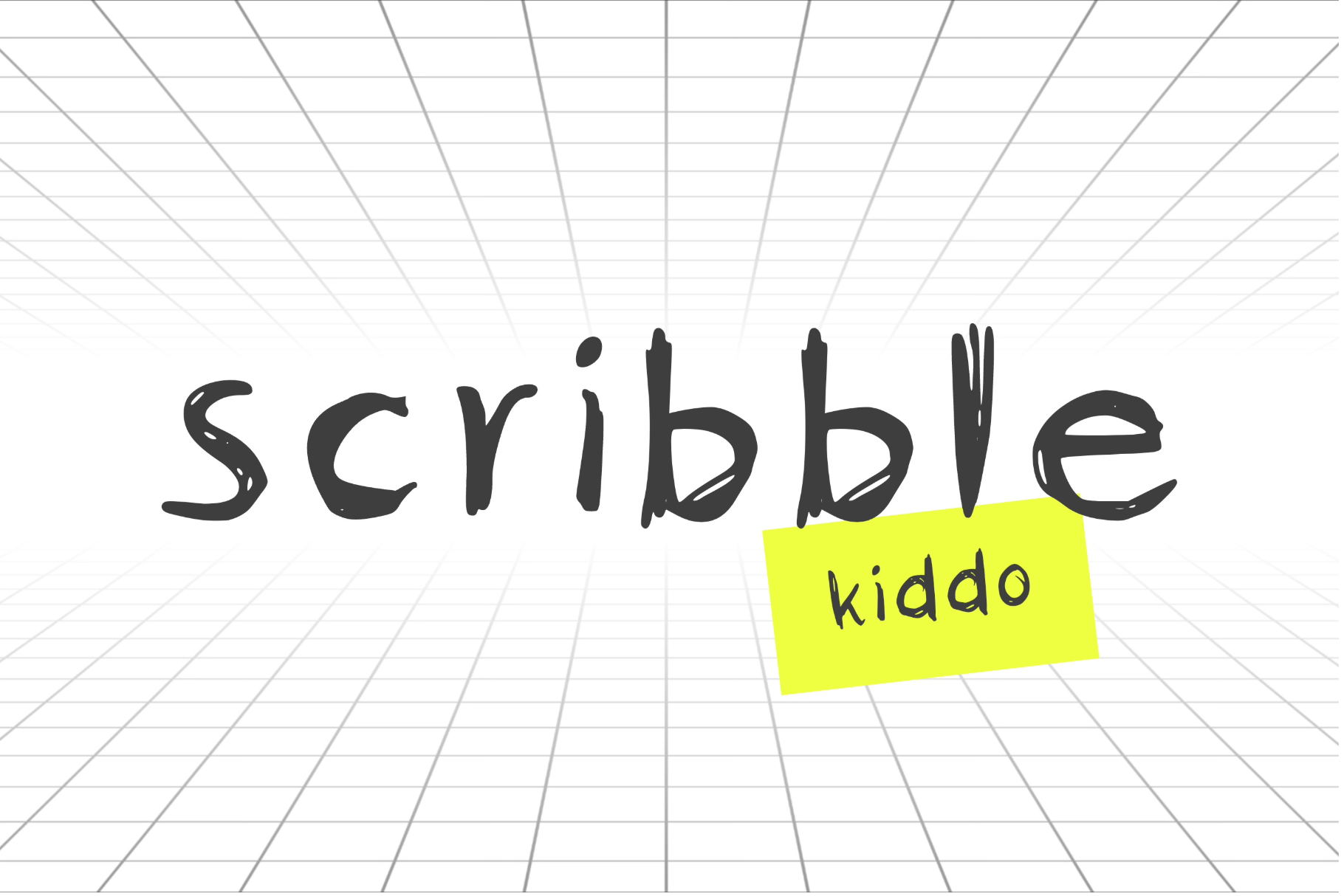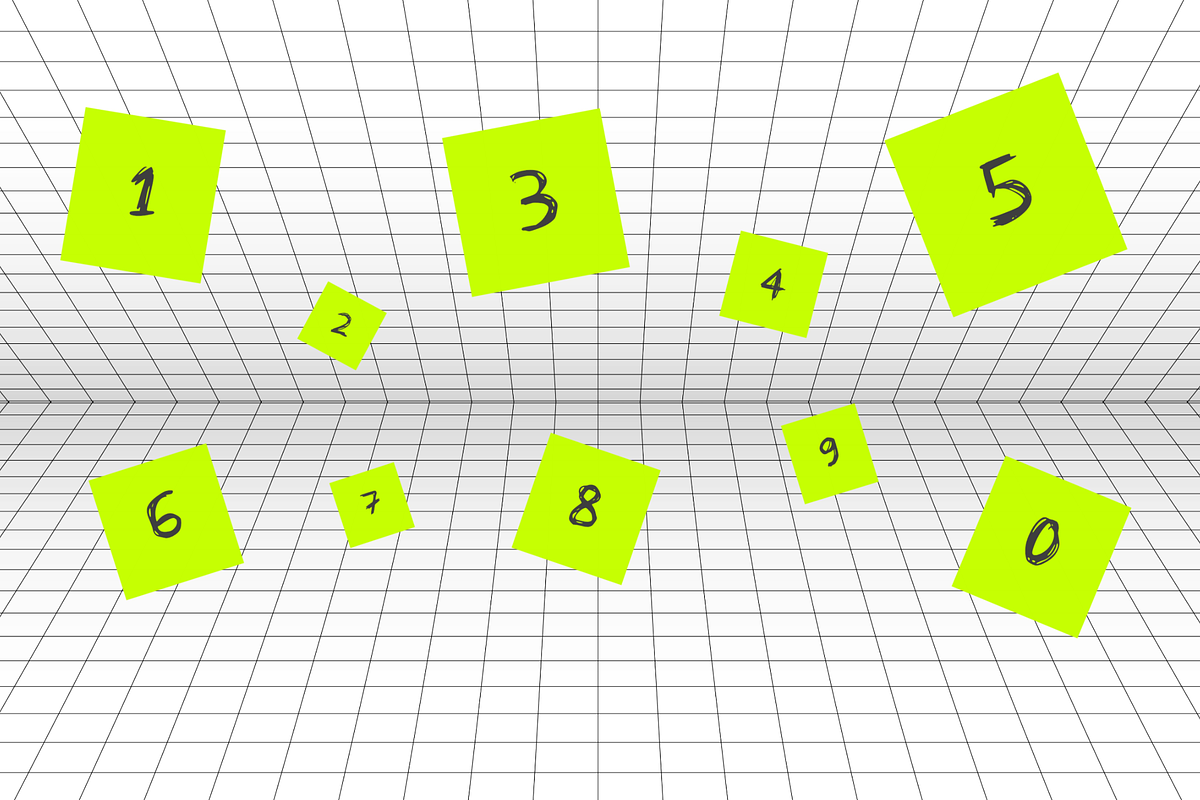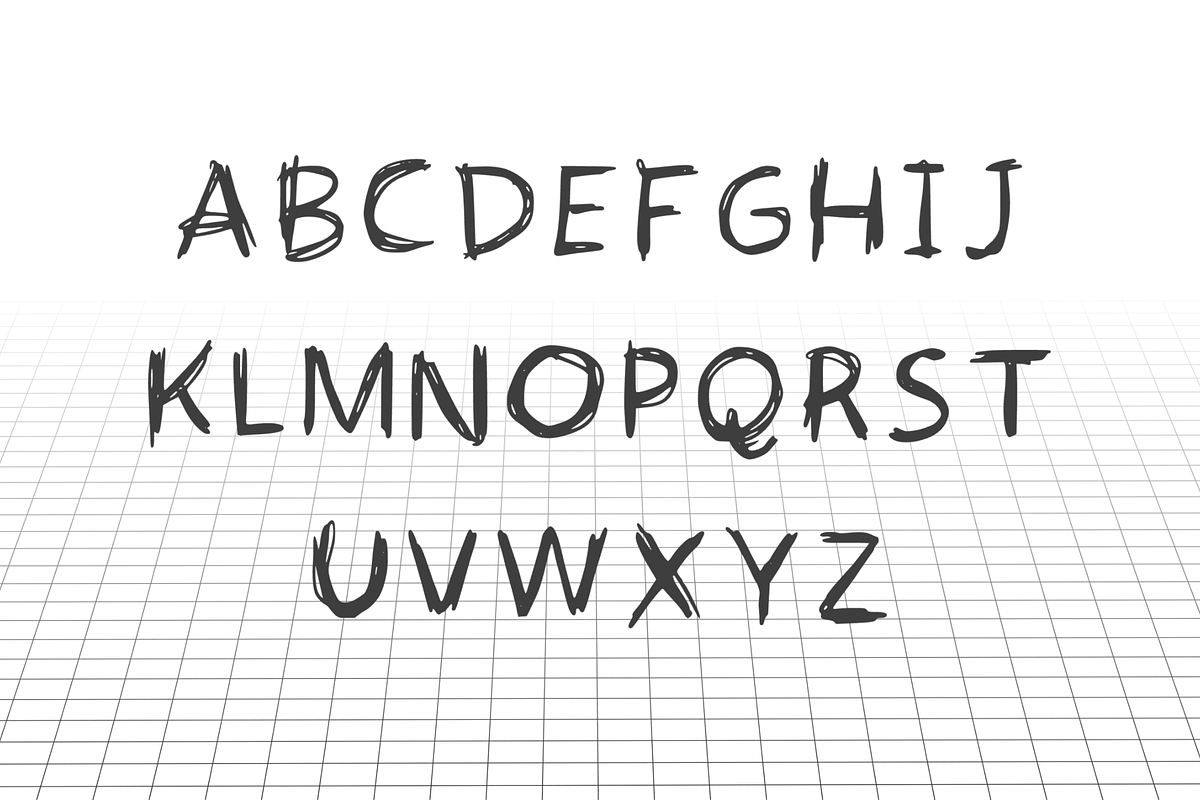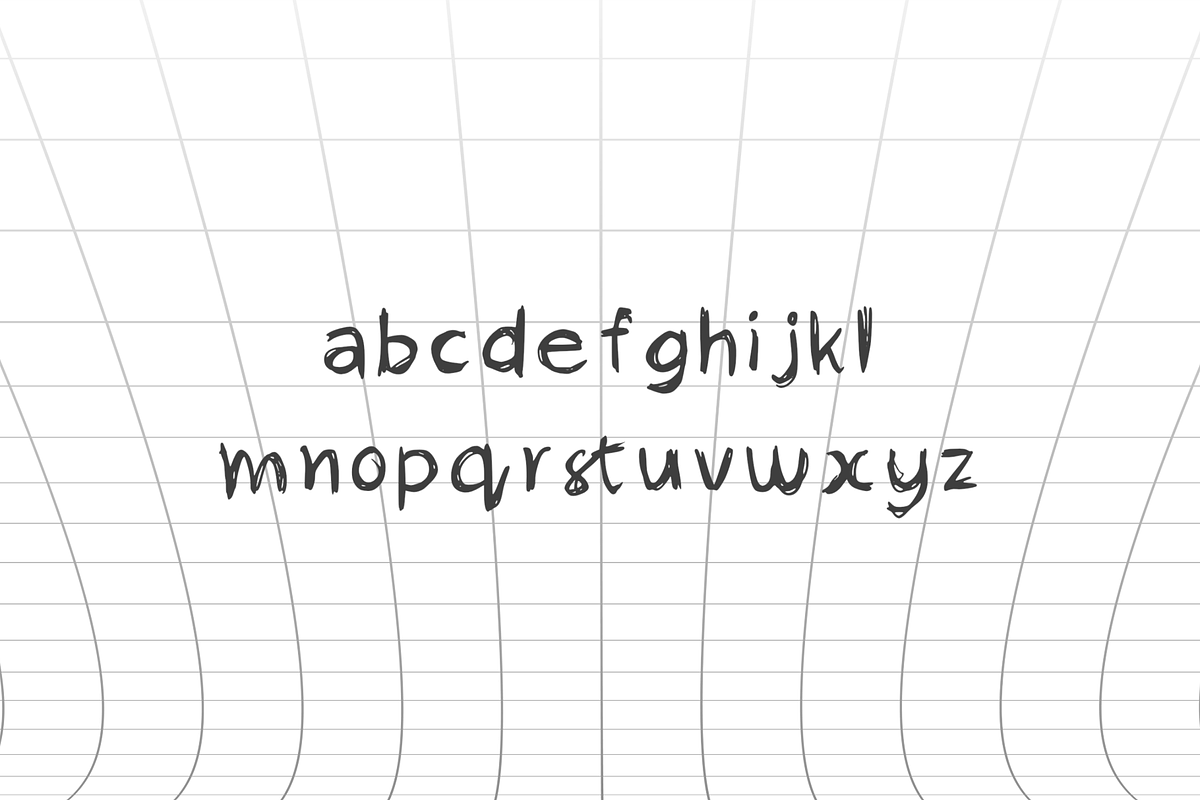
Scribble Kiddo Font
A simple handwritten scribble font - suitable for any design, especially back to school, kids school projects, for teachers, kindergarten, Montessori and adds the perfect personal touch. Upon successful purchase - .ttf and .otf files are available for download immediately.
Perfect for display font, suitable for book covers, educational material, graphic design, and more.